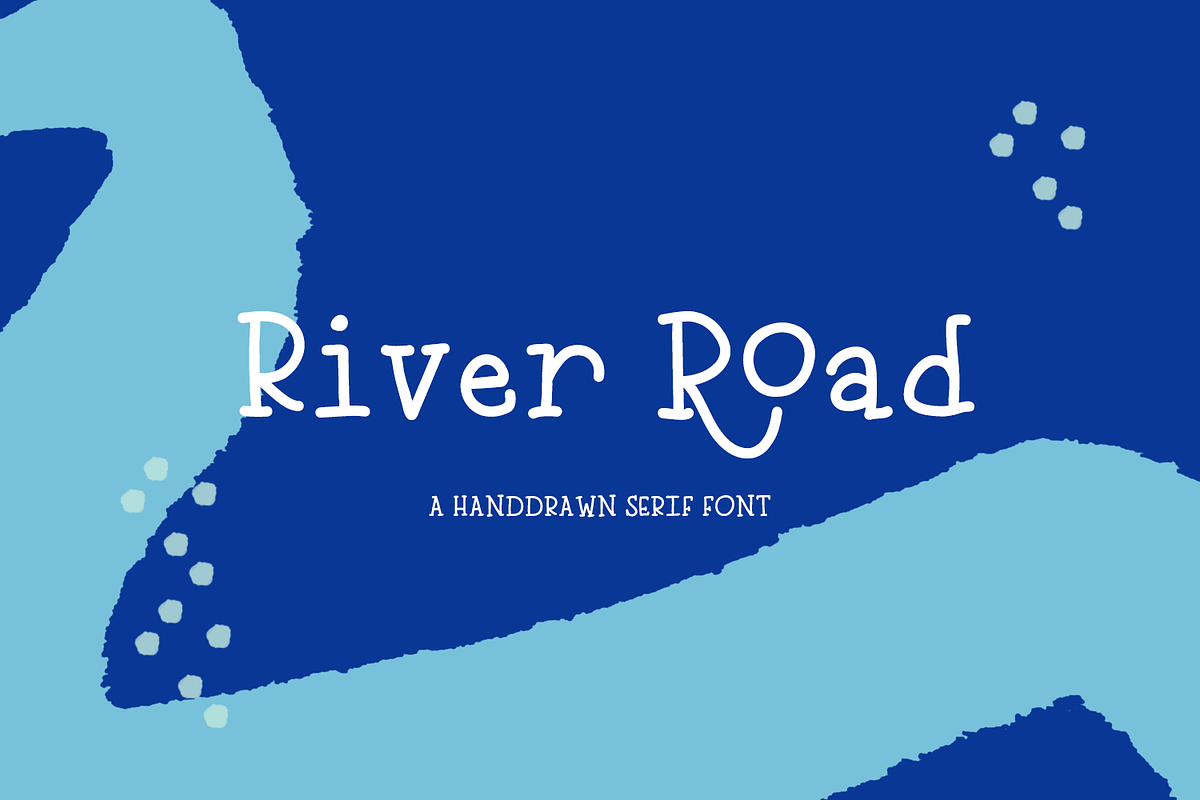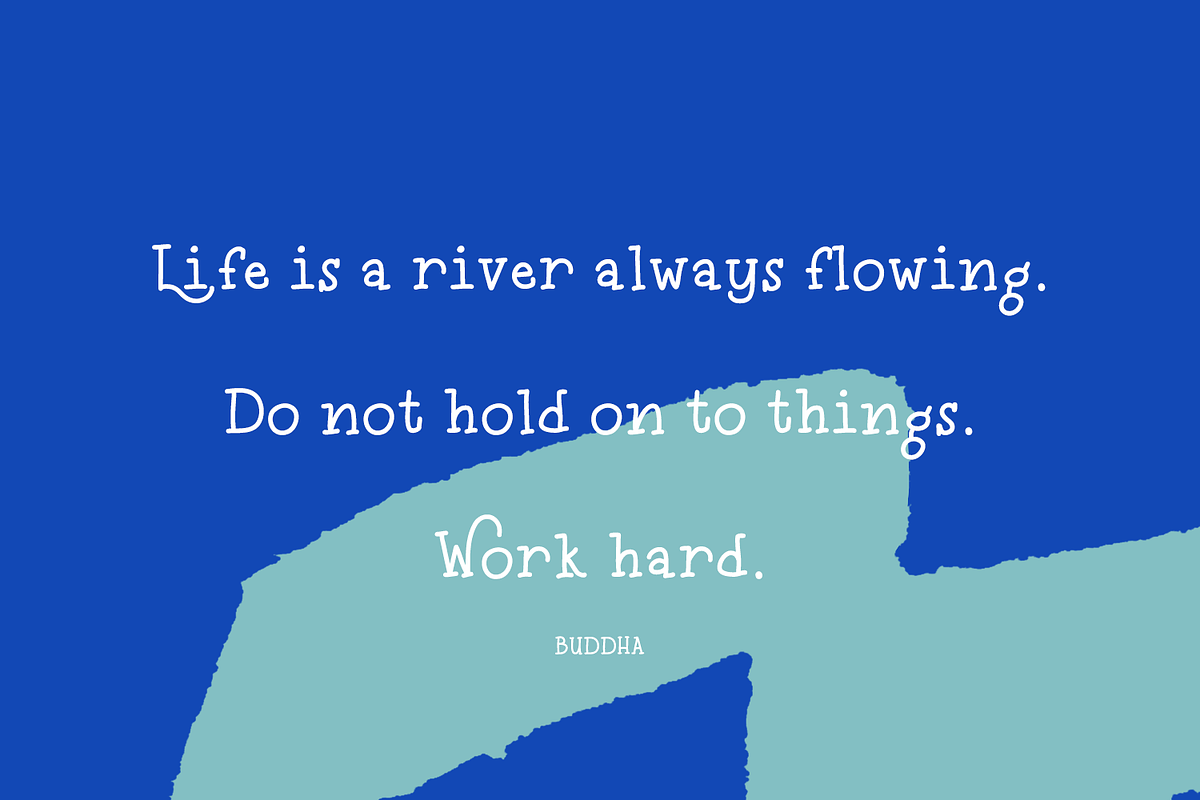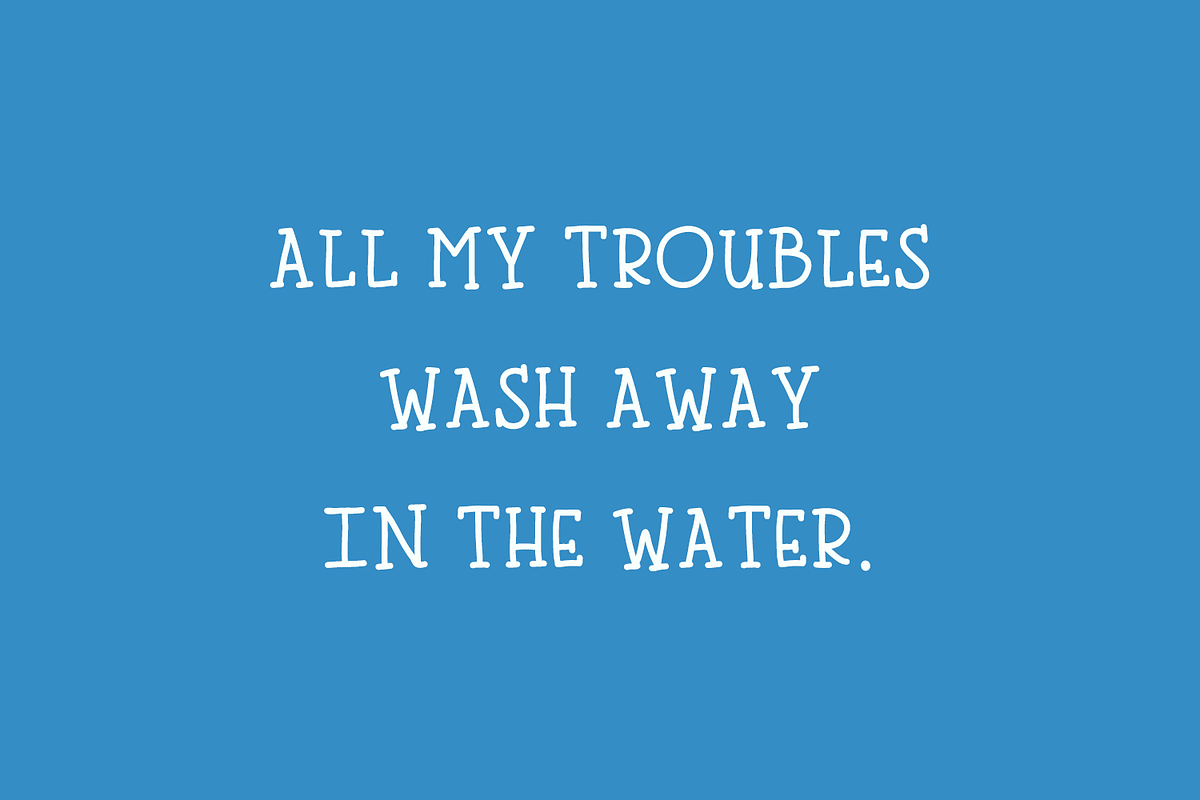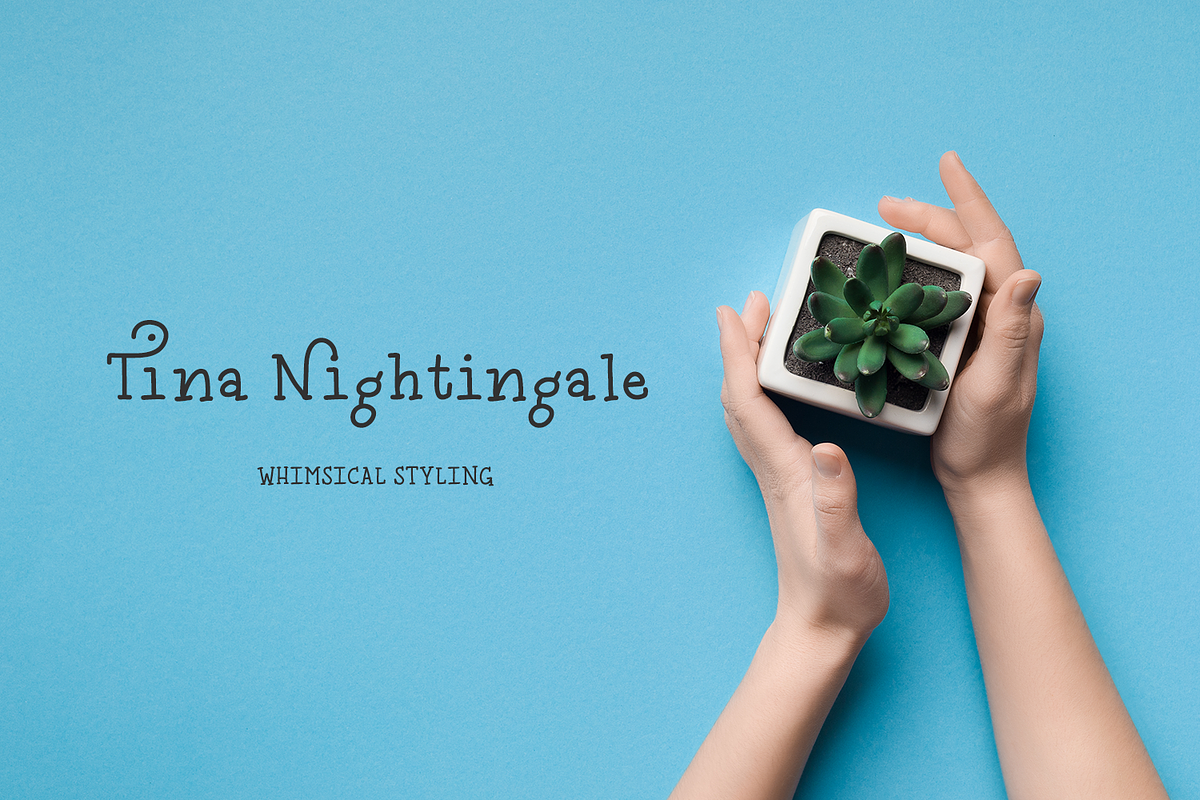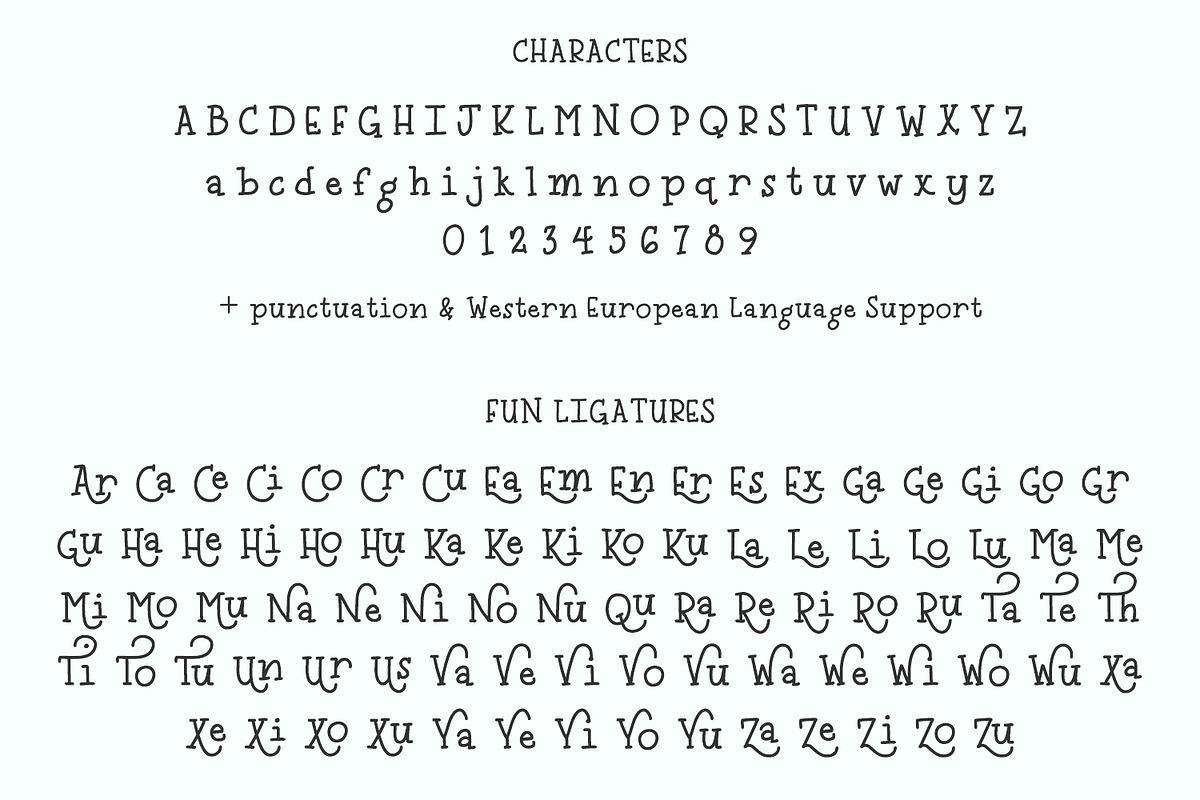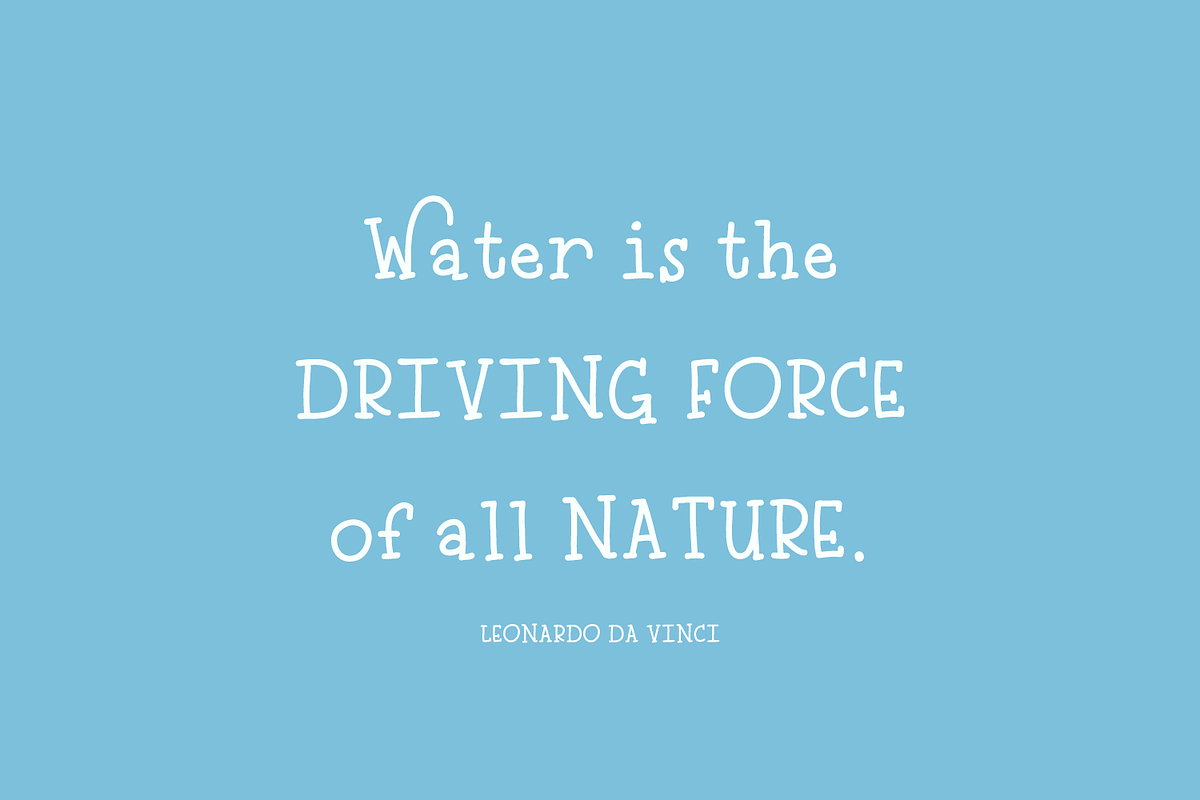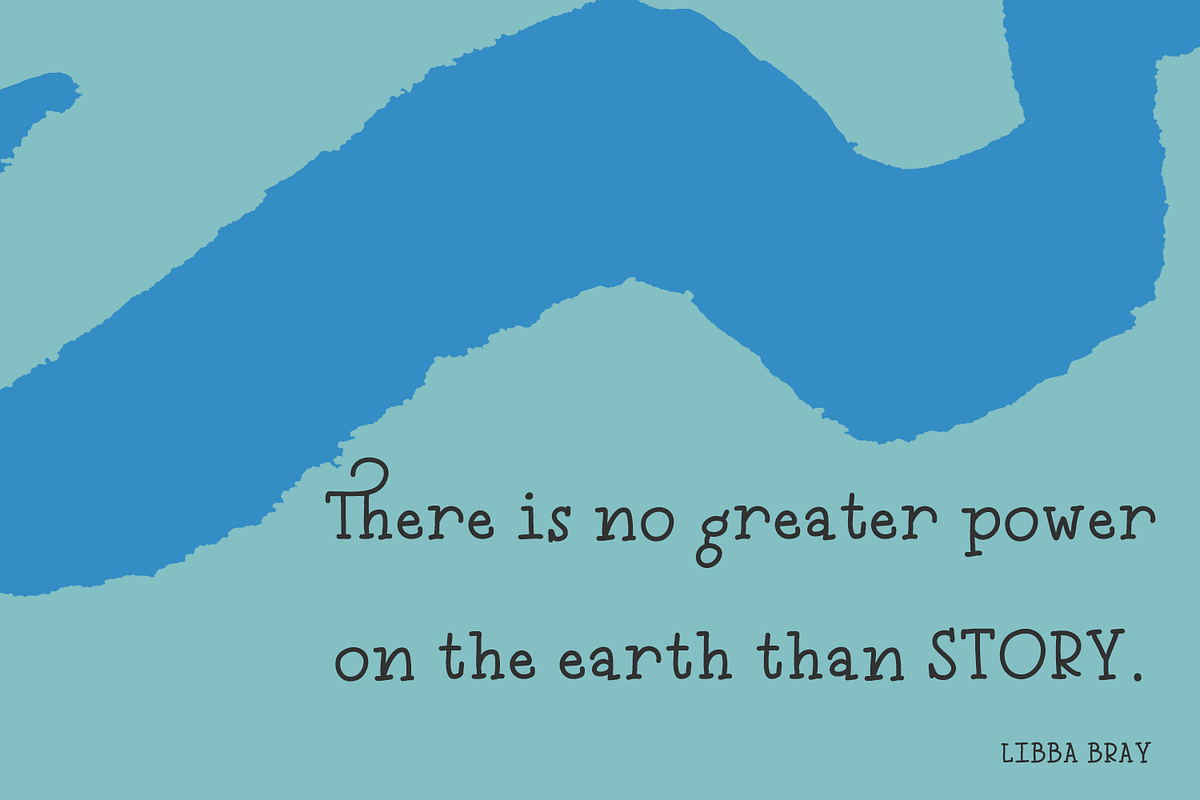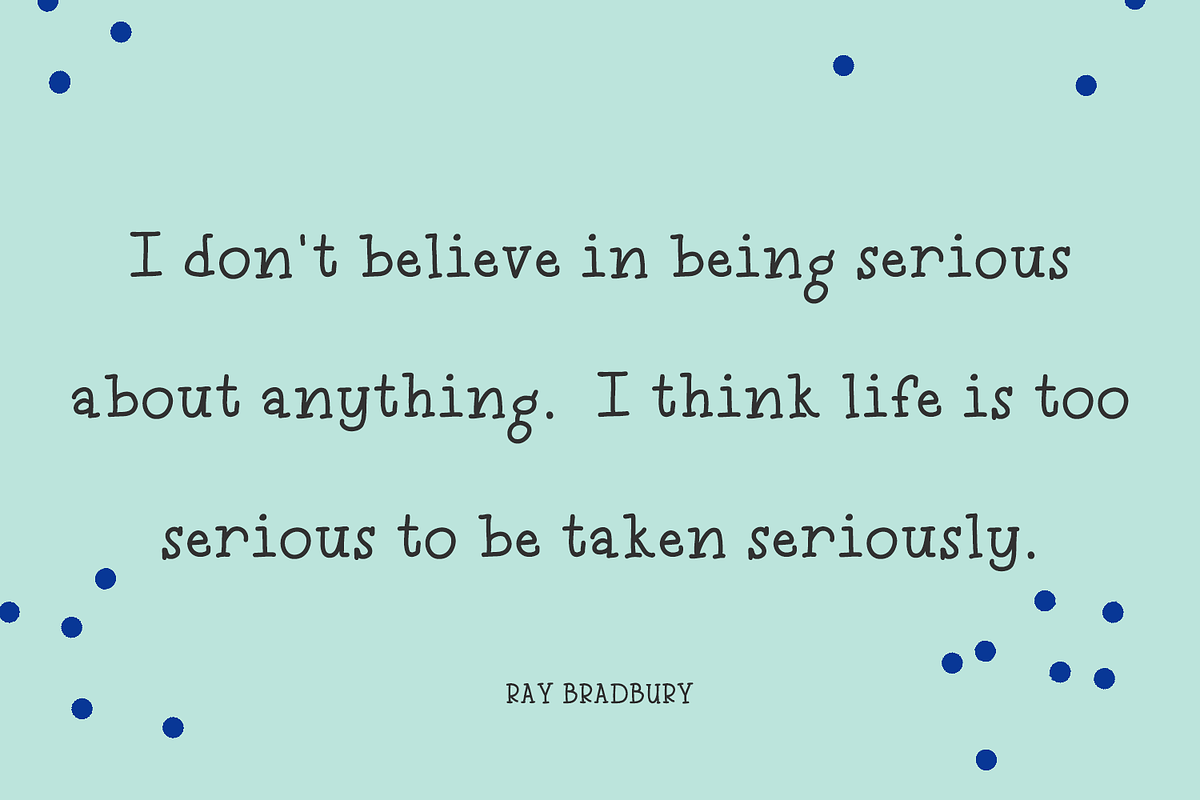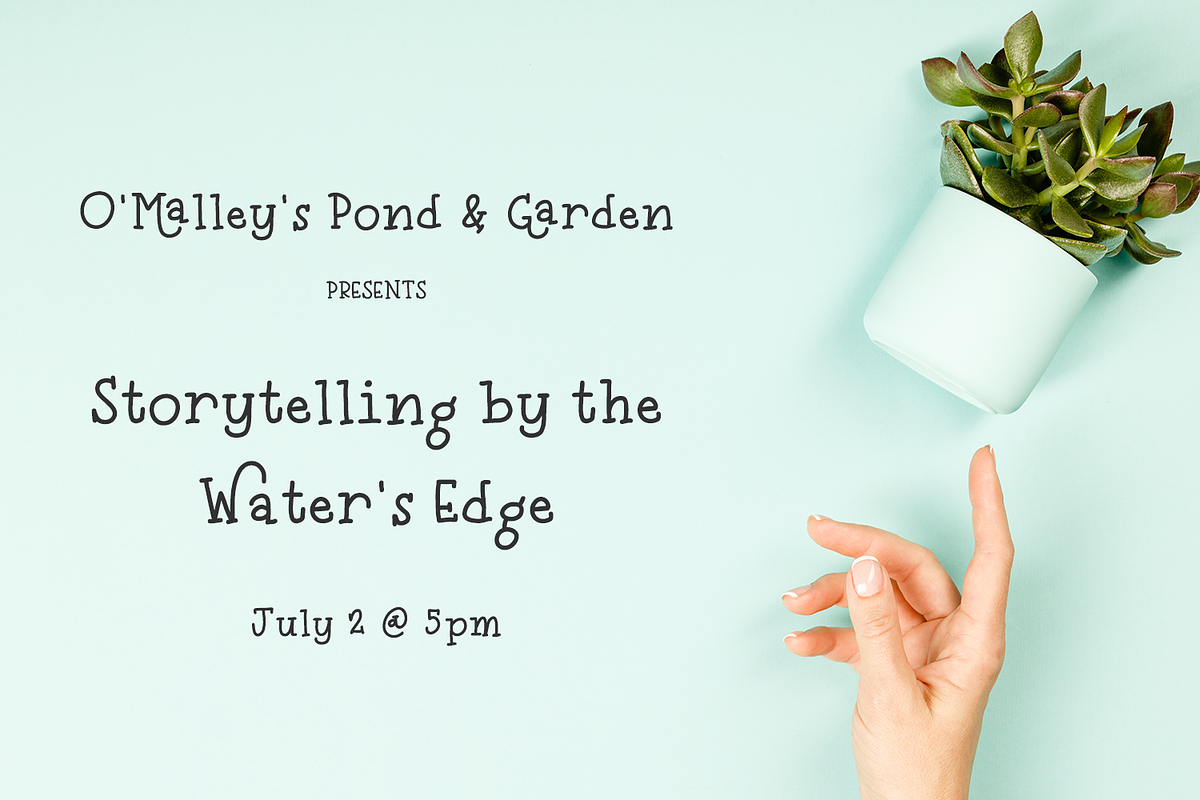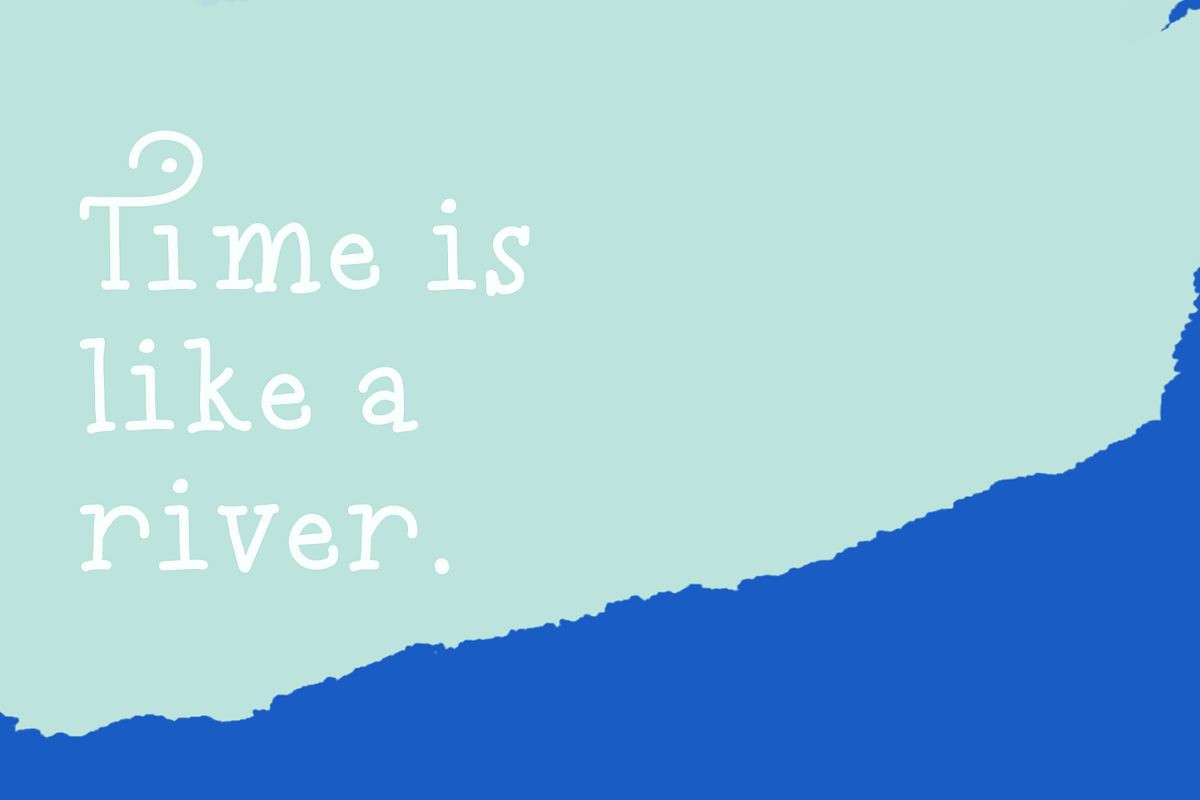
River Road Typewriter Serif
River Road is an excellent fit for:
- crafting - this font has a super smooth edge, making it an excellent fit for vinyl cutting machines like Silhouette or Cricut
- names or quotes on tumblers & mugs
- printable quotes
- shirts
River Road includes:
- full upper + lowercase characters
- numbers + punctuation
- Western European Language Support
- all 26 uppercase character alternates as individual characters
- 84 ligatures